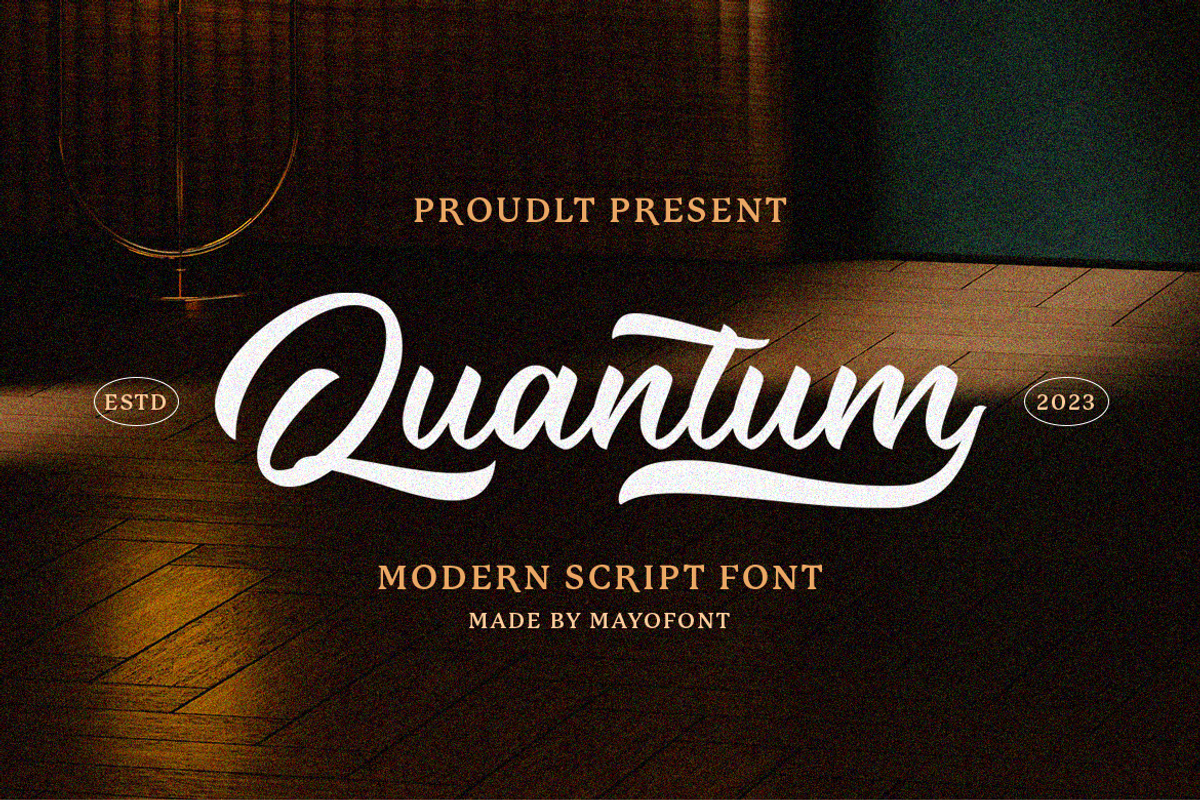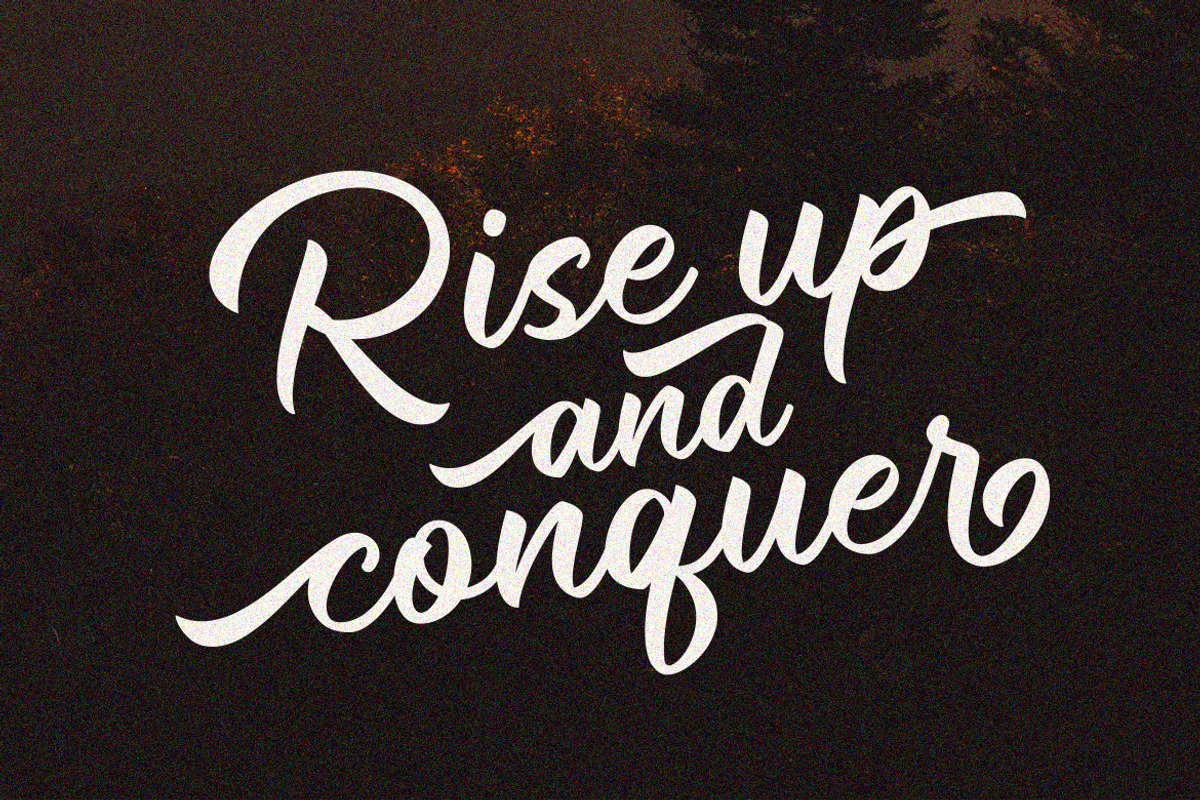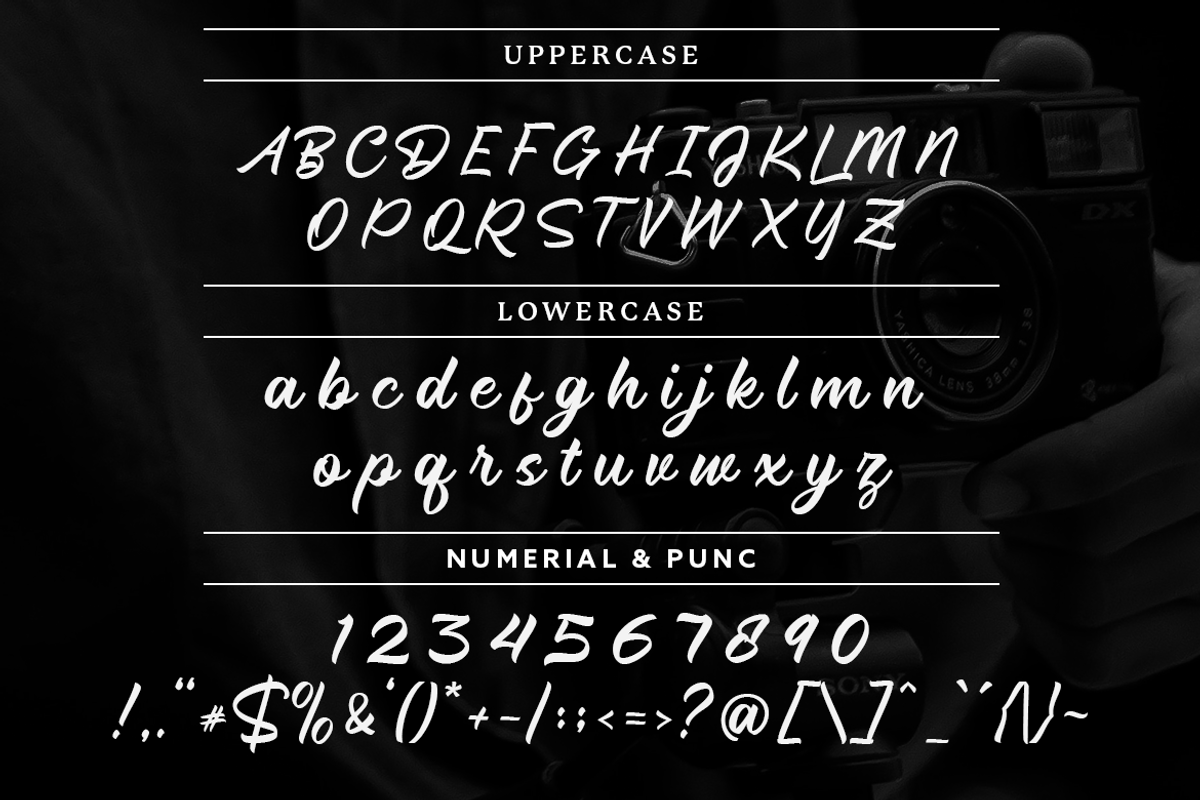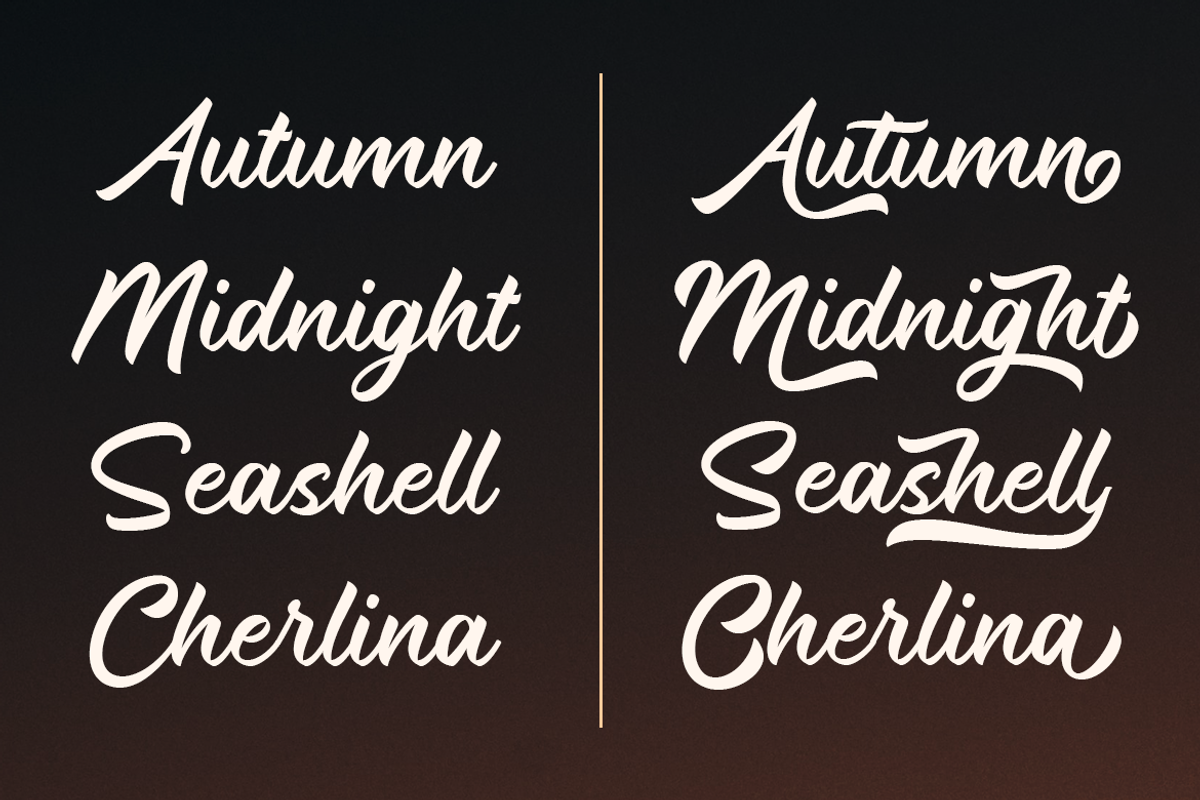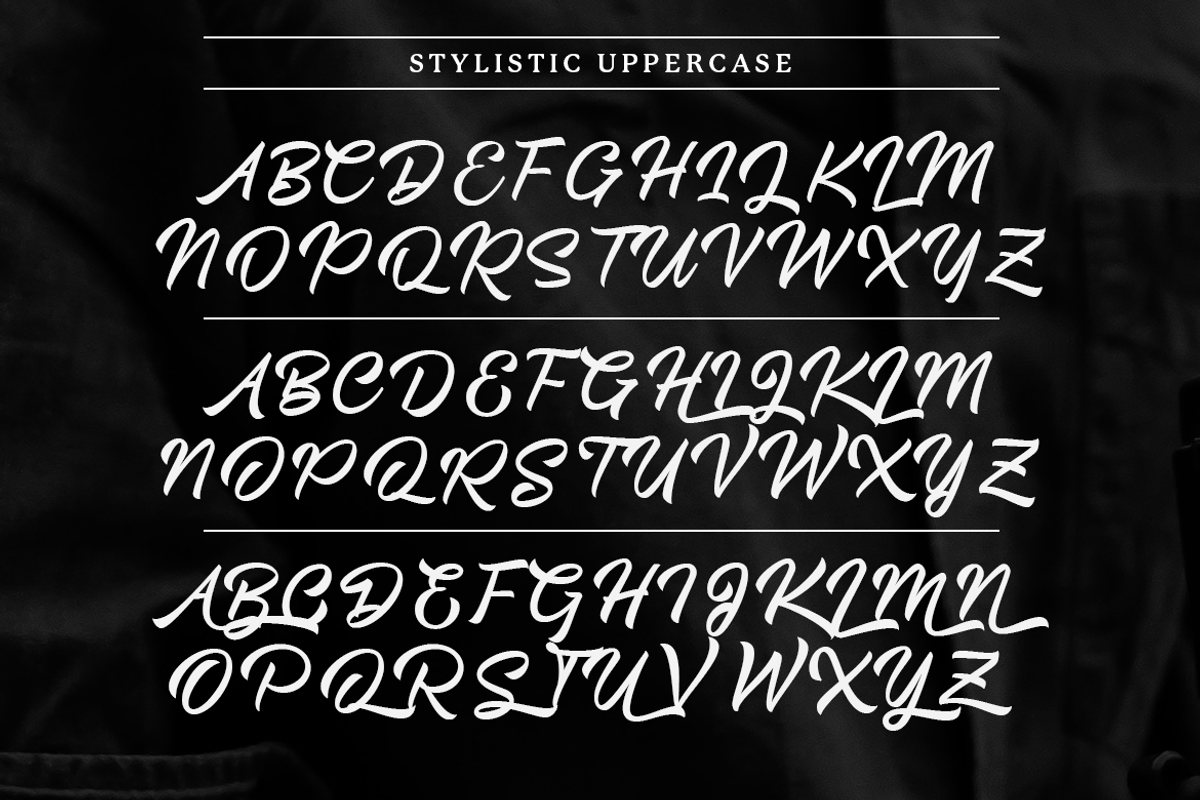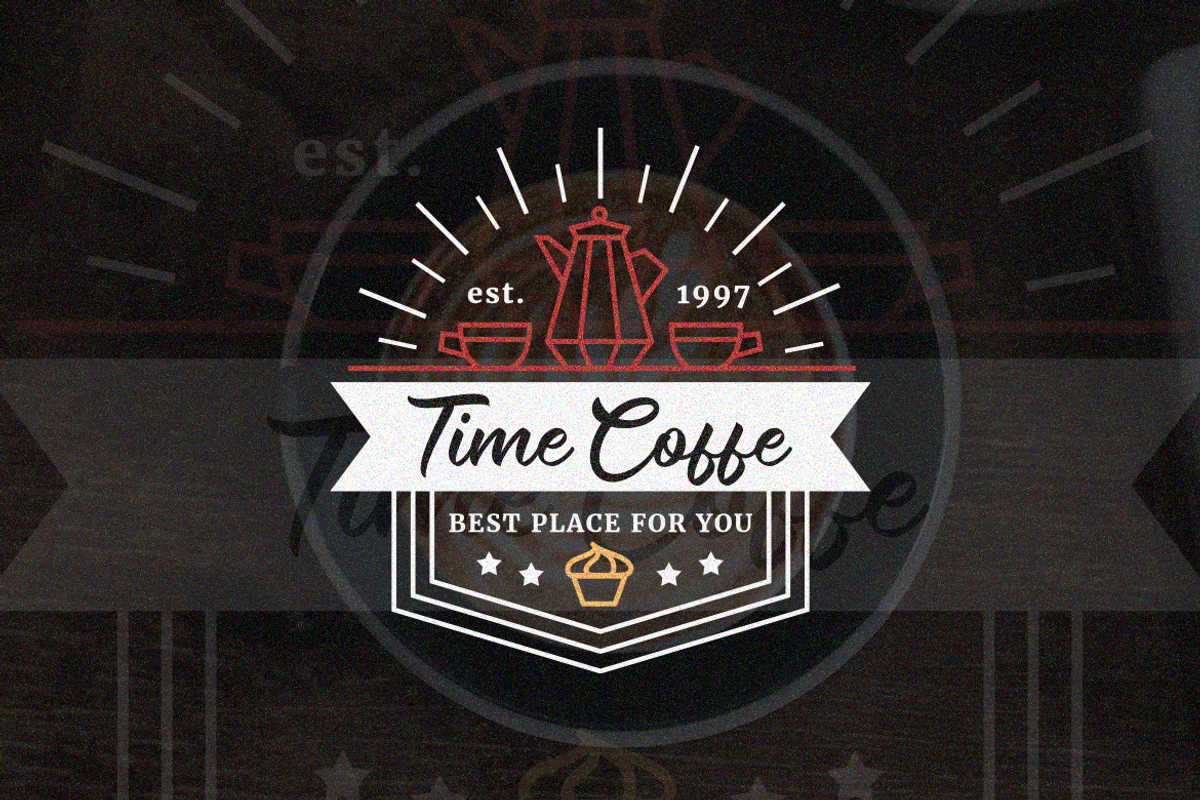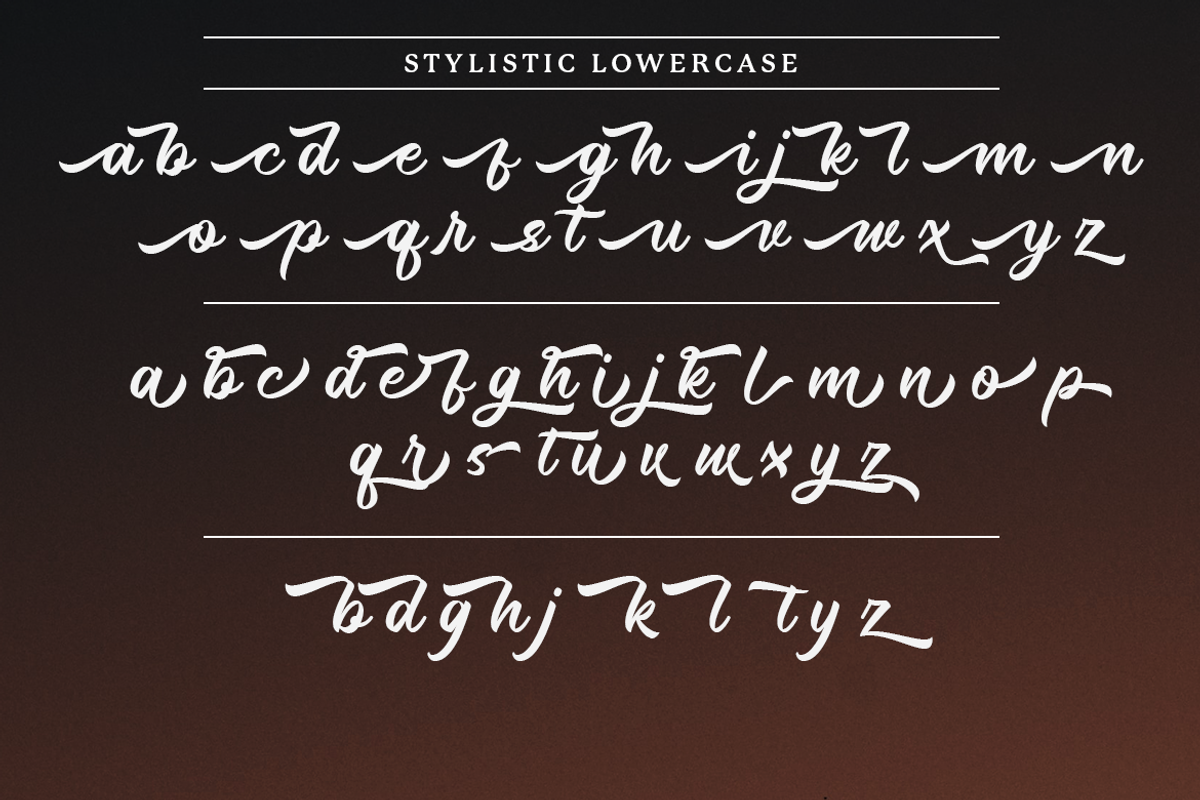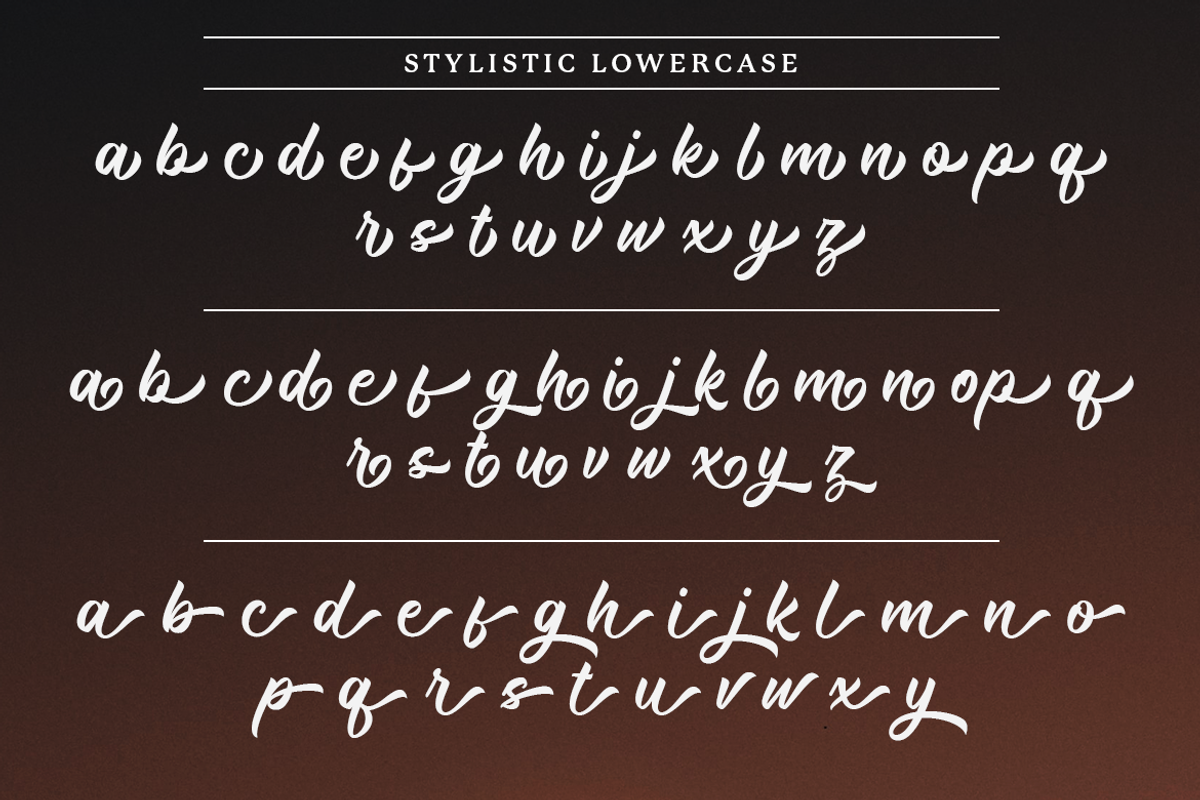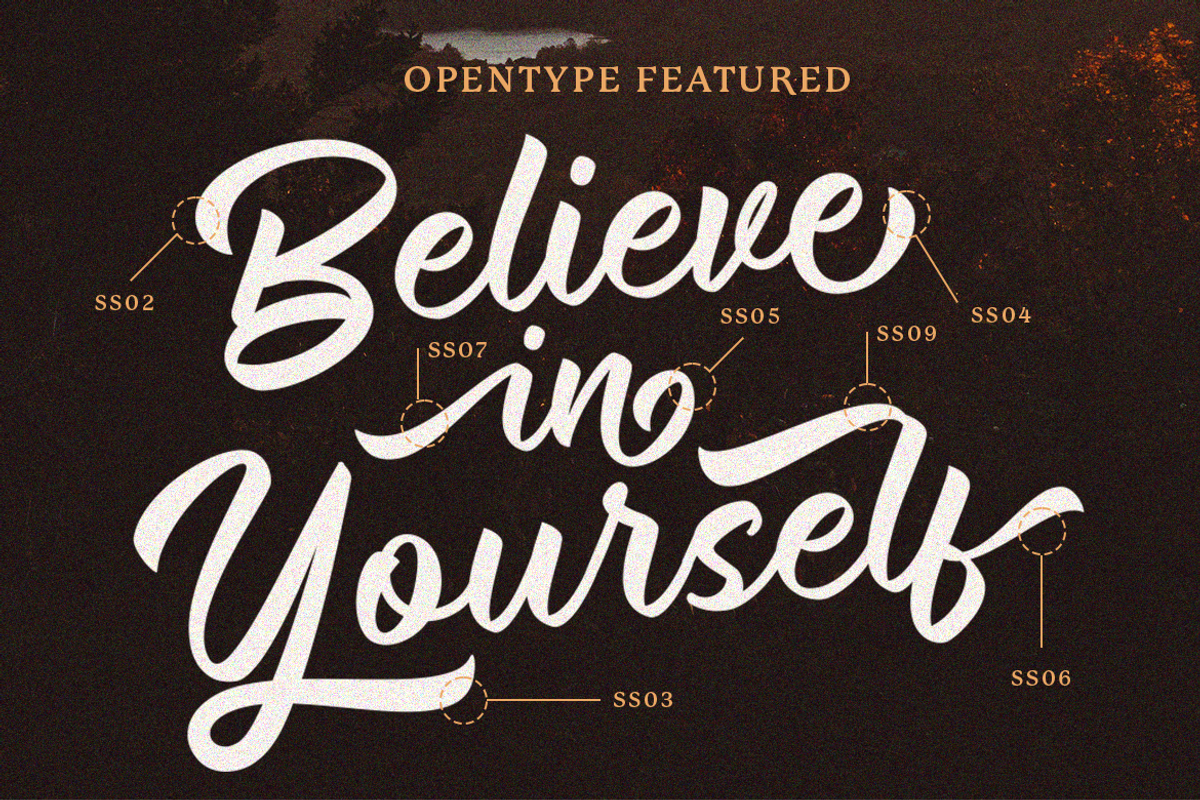
Quantum - Handlettering Font
Quantum font a beautiful blend of modern and classic styles. With its sleek and elegant design, this font is perfect for any project that needs a touch of sophistication. Its smooth curves and clean lines make it easy to read, while its unique character adds a touch of personality. Get ready to elevate your designs with this stunning font! PUA Encoded Characters - Fully accessible without additional design software.
- Alternate Glyphs (09 Stylistic Set)